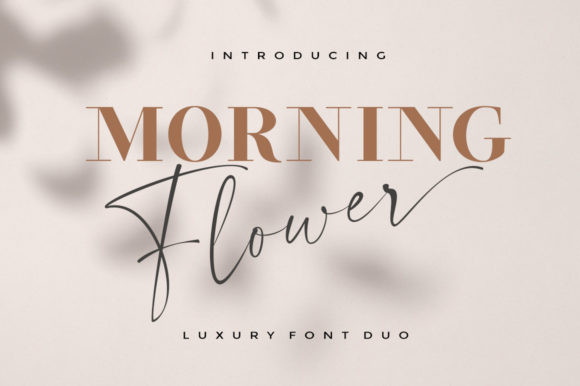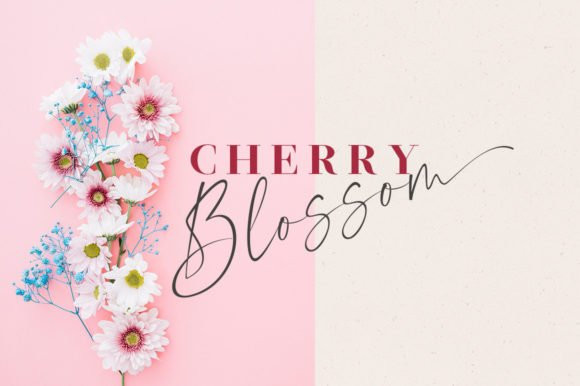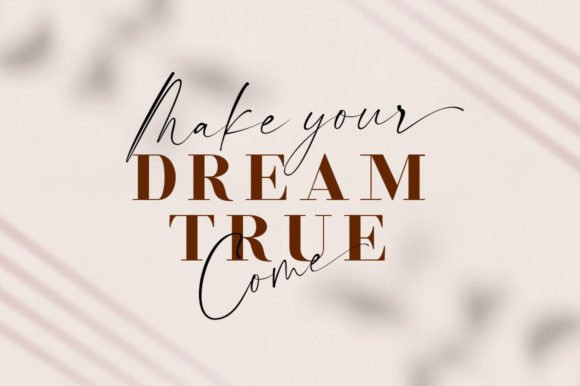
Morning Flower Font
Morning Flower Duo is a luxurious duo font (script and serif). It gorgeously combines delicacy and assertiveness. It is also PUA encoded which means you can access all of the glyphs and swashes with ease!